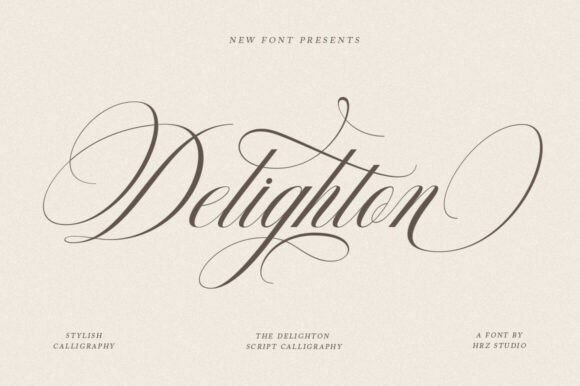
Delighton Script Font for Branding
The afternoon sun was hitting the counter of my local favorite bakery just right, illuminating a stack of freshly printed thank-you cards. I picked one up, not because I needed it, but because the typography felt like a warm handshake. It wasn’t just legible; it had personality. That moment reminded me how much weight a single typeface carries in building trust and connection. As a creative consultant who helps small businesses refine their visual identity, I often see owners struggle to find that perfect balance between professional polish and handmade charm. Recently, I introduced Delighton Script into a rebranding project for a boutique candle maker, and the results were a masterclass in how the right font can elevate a brand from generic to memorable.
Why Visual Personality Matters in Small Business
In the crowded marketplace of online shops and local boutiques, your brand identity is often the first thing a potential customer notices. Before they read your product description or check your prices, they see your logo, your packaging, and your social media graphics. If these elements feel disjointed or amateurish, it creates subconscious friction. Typography is the voice of your design. A harsh, rigid font might say "corporate," while a messy scrawl might say "unpolished." You need something that says "crafted with care."
This is where Delighton Script shines. It is a calligraphy script font that bridges the gap between classic decorative copper script and modern sensibilities. It doesn’t try too hard to be perfect, which is exactly why it works so well for human-centric brands. The high-detail design brings a level of sophistication that makes even simple products look premium. When you are selling handmade goods, artisanal foods, or personalized services, your fonts need to reflect the effort you put into your craft. Delighton Script does this by offering beautiful changing characters that prevent the text from looking robotic or repetitive.
Real-World Application: From Labels to Logos
Let’s look at how this plays out in real business scenarios. For the candle brand I mentioned, we were struggling with their jar labels. The previous design used a standard sans serif font that felt cold against the warm, organic scent profiles of their products. We switched to Delighton Script for the product names, such as "Vanilla Bean" and "Cedar Wood." The result was immediate. The flowing lines of the script mimicked the swirl of melting wax, creating a visual harmony that resonated with customers.
Beyond packaging, this typeface is incredibly versatile for various design assets. Consider a café updating its menu board. Using Delighton Script for section headers like "Seasonal Specials" or "House Blends" adds a touch of elegance without sacrificing readability. It works beautifully on business cards, where space is limited but impact is crucial. A well-placed script logo on a minimalist card can make a lasting impression. For online sellers, integrating this font into Instagram templates or Pinterest pins creates a consistent aesthetic that followers begin to recognize instantly. This visual consistency builds trust, making your brand feel established and reliable.
Readability and Strategic Usage
One common concern with script fonts is readability. While Delighton Script is stunning, it is primarily a display font. This means it is best suited for headlines, short phrases, logos, and decorative accents rather than long paragraphs of body text. If you try to use it for your website’s terms and conditions or a lengthy blog post, you will lose your audience. However, for product titles on e-commerce sites, banner ads, and social media thumbnails, it performs exceptionally well.
When using it on small labels, such as those on skincare bottles or jewelry tags, ensure the size is large enough for the intricate details to remain clear. On mobile screens, where many customers will first encounter your brand, test the font at various sizes to ensure the ligatures and alternates do not blur together. The key is contrast. Use Delighton Script for the emotional hook—the name, the tagline, the call to action—and pair it with a clean, neutral typeface for the informational content.
Pairing Ideas for a Cohesive Look
To maximize the impact of Delighton Script, thoughtful font pairing is essential. Since this font has a classic yet modern vibe, it pairs wonderfully with clean sans serif fonts. Imagine the flowing curves of Delighton Script balanced by the geometric stability of a modern sans serif for product descriptions or pricing. This combination feels contemporary and easy to read. Alternatively, for a more traditional or editorial look, you might pair it with an elegant serif font. This works particularly well for wedding invitations, boutique branding, or high-end coaching materials where a sense of heritage and authority is desired.
Avoid pairing it with other overly decorative handwritten fonts, as this can create visual clutter. Let Delighton Script be the star. Its detailed strokes and natural rhythm provide enough visual interest on their own. By keeping the supporting typography simple, you allow the script to convey the warmth and personality of your brand without overwhelming the viewer.
Technical Details and Licensing
Before implementing any new typeface into your commercial projects, it is vital to check the technical specifications and licensing. Delighton Script comes with a variety of features that enhance its usability. Look for included styles, file formats, and especially the alternates and ligatures. These features allow you to customize the flow of the text, ensuring that repeated letters do not look identical, which maintains the hand-lettered illusion. Multilingual support is also a key factor if you plan to expand your reach to international markets.
In the end, choosing a font like Delighton Script is about more than aesthetics; it is about communication. It tells your customers that you value beauty, detail, and consistency. Whether you are refreshing a menu, designing a new logo, or creating thank-you cards, this typeface offers the perfect blend of classic charm and modern clarity. It transforms ordinary text into a brand asset that engages, delights, and remembers.